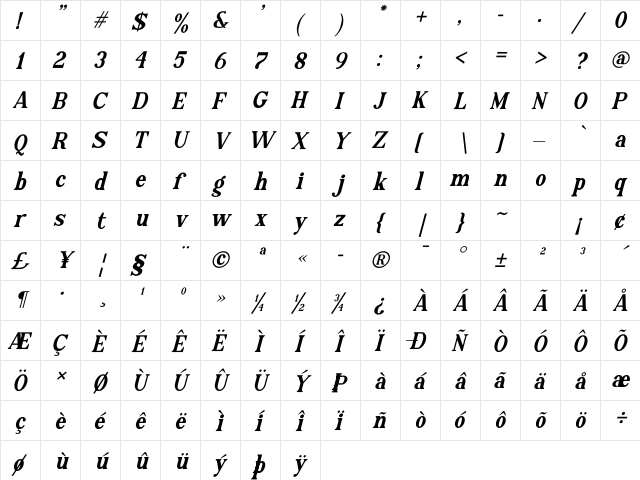
Regionaire Italic Regular
Design Context for Regionaire Italic Typeface
Regionaire Italic offers clean, dependable letterforms without strong stylistic allegiance, making it a practical choice for designers who need flexibility. The dynamic lean of this cut emphasises speed and emphasis in any layout.
Pro Tip: Use Regionaire Italic for emphasis, pull quotes, and subheadings where its slanted energy can add rhythm to the layout.